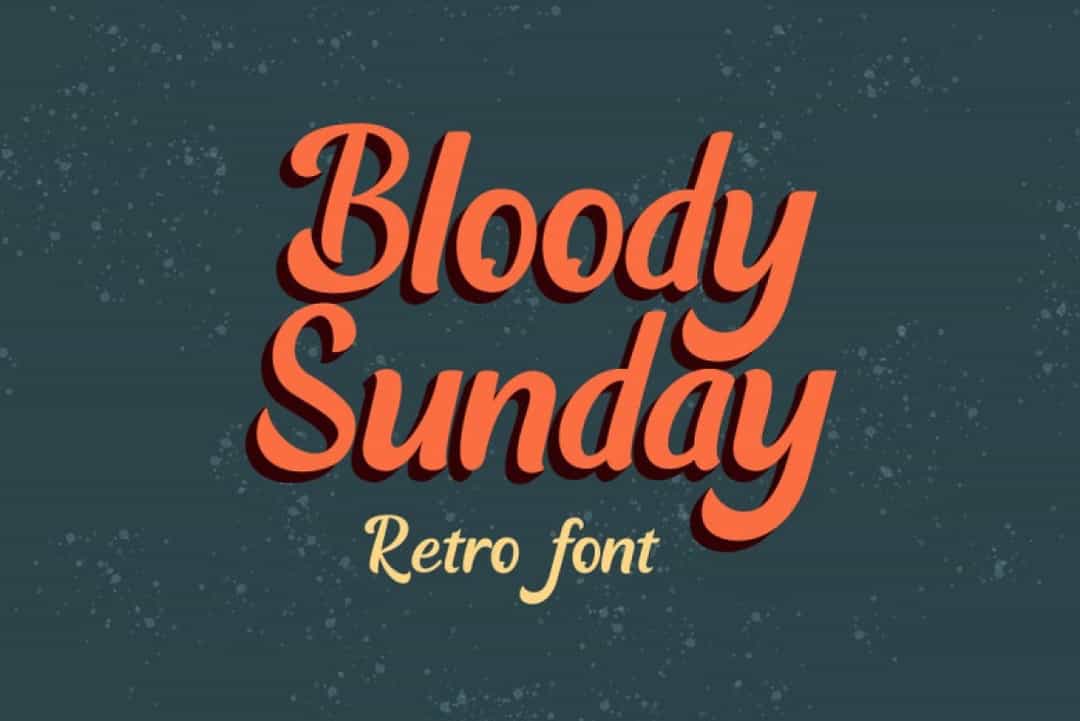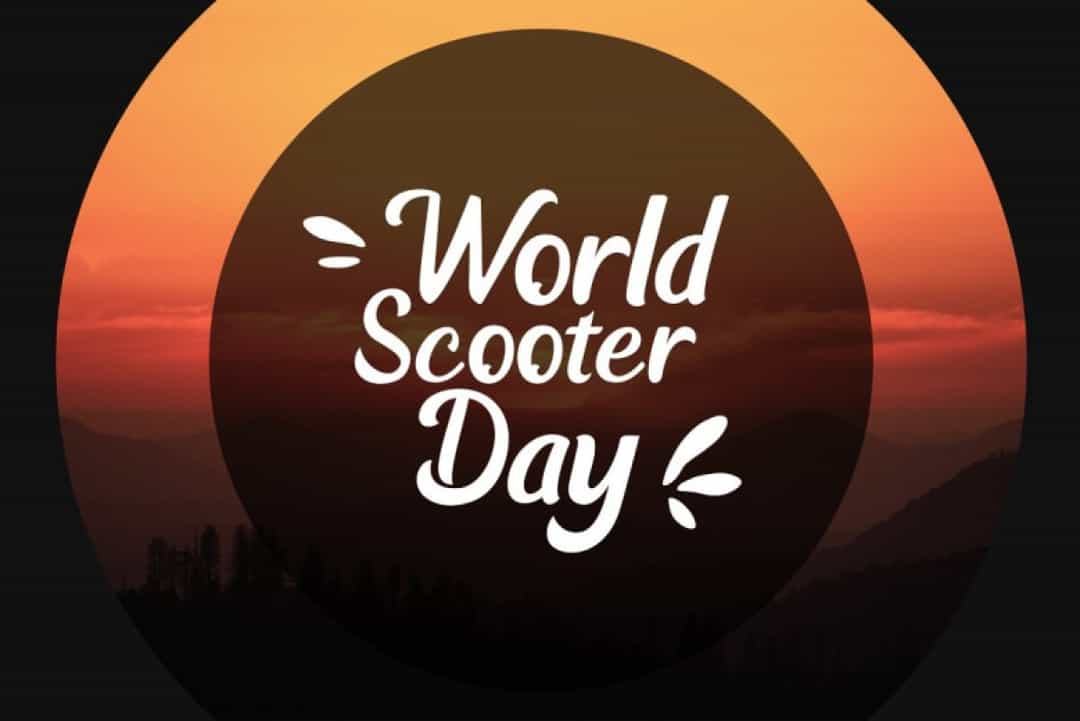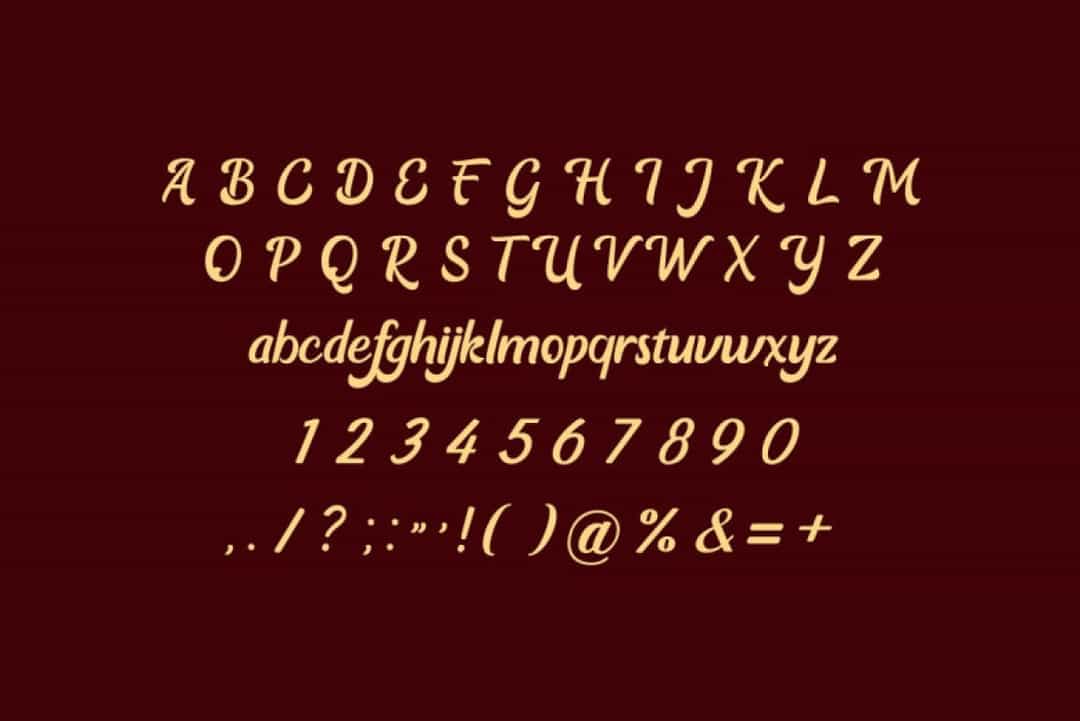
Bloody Sunday Font is an eye-catching retro script font featuring alternate, ligature and swash elements to create an eye-catching typography. Perfect for stationary designs, signatures, logos wedding invitations, typography quotes magazines or book covers headers on websites as well as clothing branding or packaging designs and more, Bloody Sunday font is ideal.